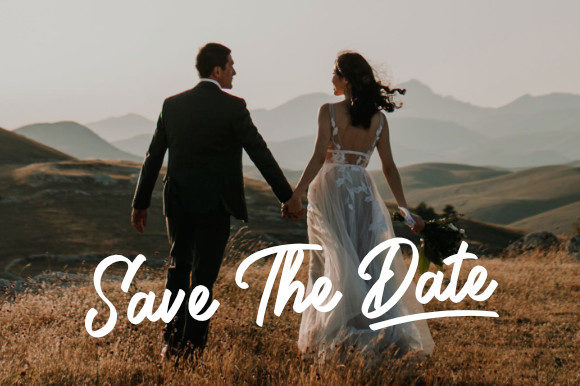
About Bilground Font
Bilground is a well balance, flowing brushed script font that emanates sophistication and elegance. Its stylish alternates and ligatures make this font the perfect match for any project. This font is PUA encoded which means you can access all of the glyphs and swashes with ease!